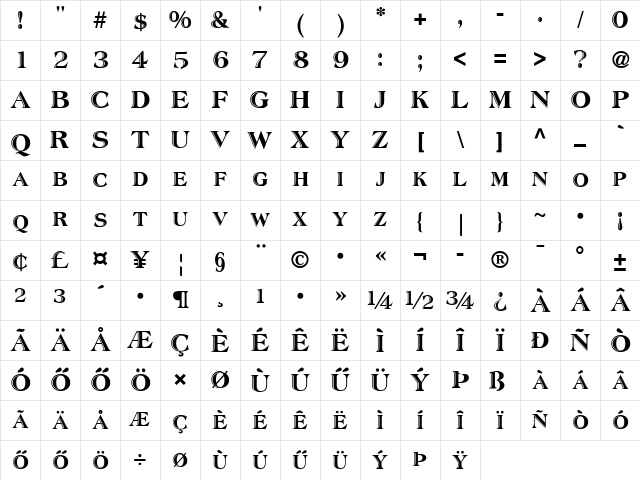
Atlantic-Inline HU Normal
Design Context for Atlantic-Inline HU
Atlantic-Inline HU is built around its visual character rather than neutral utility - its distinctive forms are designed to make an impression at display sizes.
Font Pairing: Pair with a clean neutral sans-serif for body copy to let Atlantic-Inline HU's character lead without overwhelming the composition.
Pro Tip: Use Atlantic-Inline HU exclusively at display sizes - it was designed to be seen, not read at length. Let a neutral companion handle body copy.